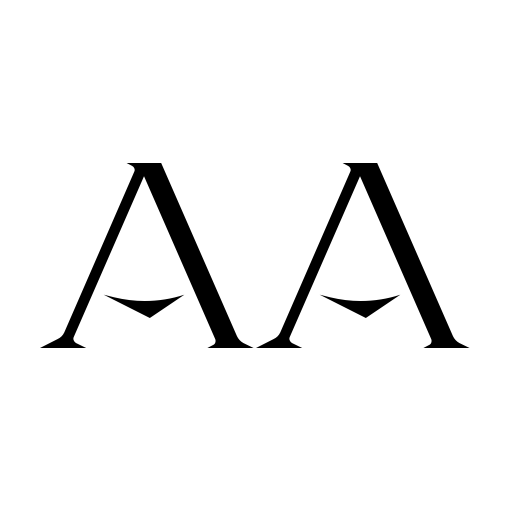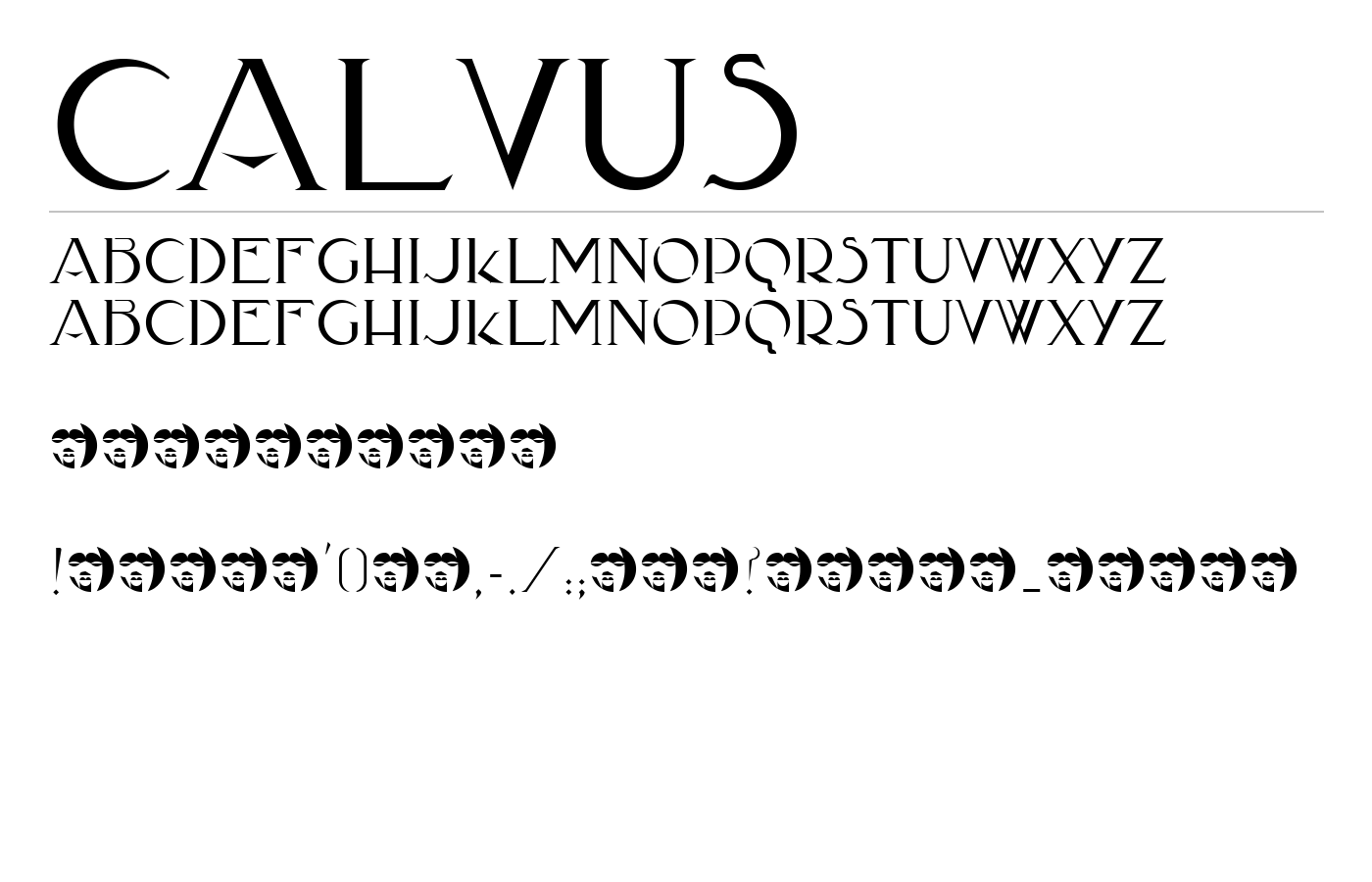
Calvus is a distinctive serif font with a refined, modern twist, featuring sharp contrast between thick and thin strokes and elegant, geometric shapes. Its high contrast and unique letterforms give it a sophisticated yet artistic personality, making it ideal for luxury branding, editorial headlines, and stylish logos where a bold, elegant impression is desired. This font stands out for its striking presence and clean, sharp details, perfect for designs that want to convey exclusivity and creativity.
Calvus Font
About Calvus Font